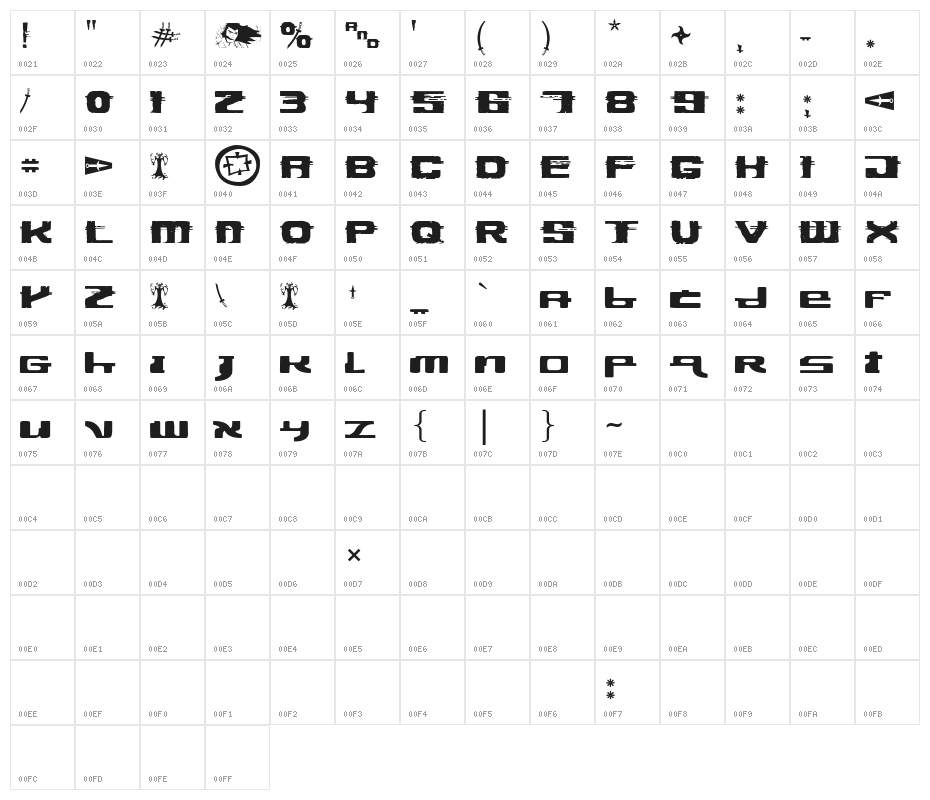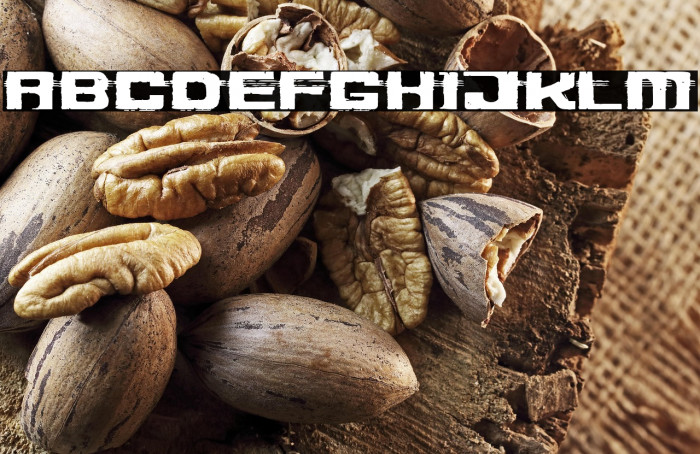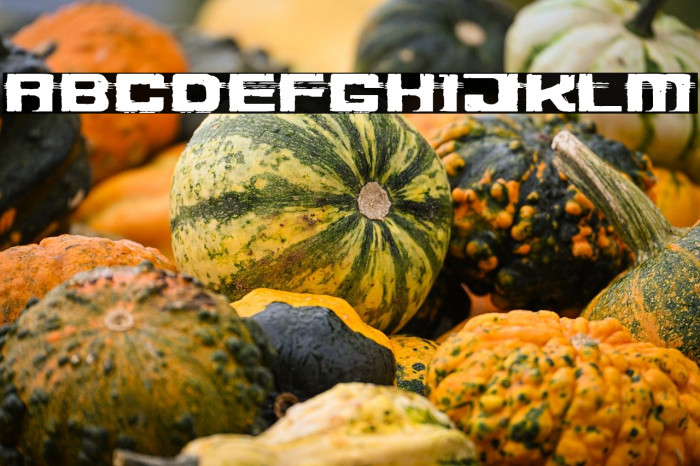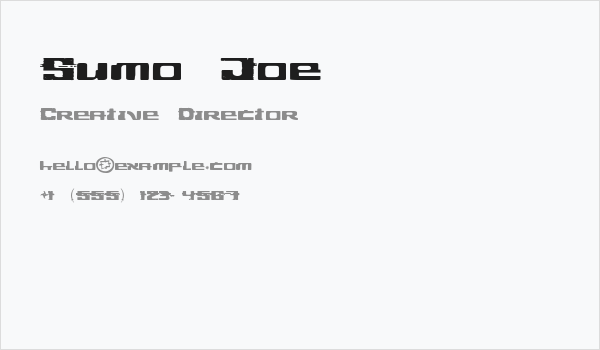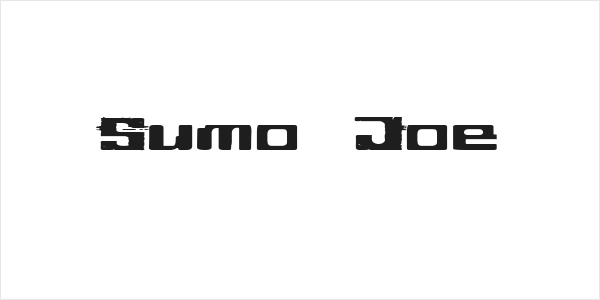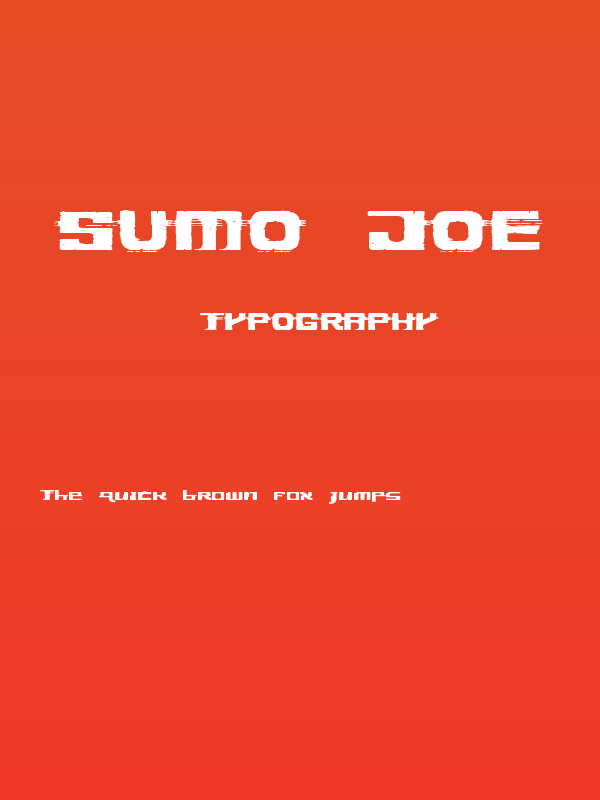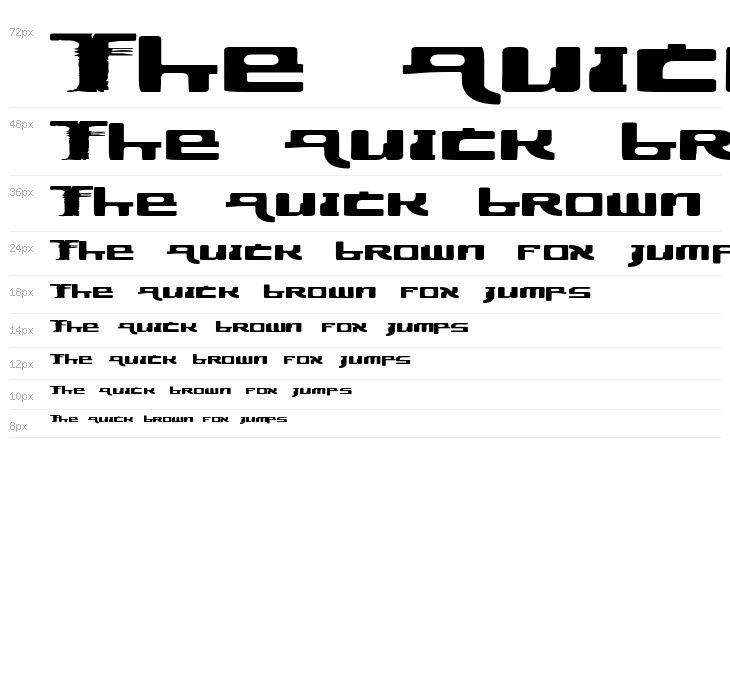
Sumo Joe Font
Sumo Joe Description
This font features a bold, dynamic style with a distressed, grunge-like texture that gives it a rugged and edgy appearance. The uppercase and lowercase letters maintain a consistent width, creating a uniform look across the text. The characters are slightly condensed, enhancing the compact and impactful nature of the font. The numerals and special characters follow the same design principles, ensuring a cohesive visual theme. The font's unique style makes it suitable for projects that require a strong, attention-grabbing aesthetic.
Overall StyleEdgy, Grunge
Proposed ProjectsIdeal for posters, album covers, video game graphics, and branding that requires a bold statement.